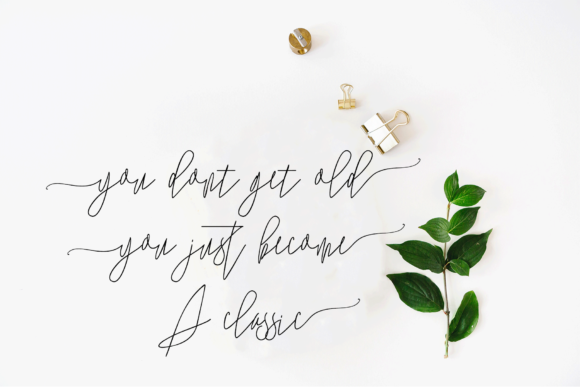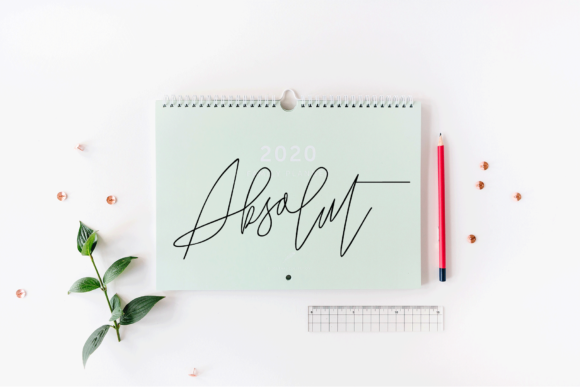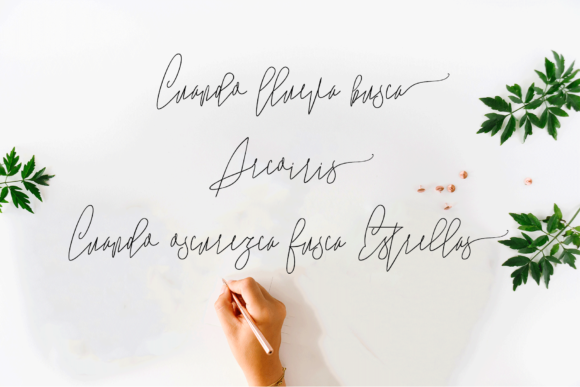
Introduction to Marthilla Font
Have you ever been working on a creative project and suddenly, the perfect font just pops into your mind? That’s exactly what happened to me when I stumbled upon the Marthilla Font. Its unique, handwritten style has a way of adding a personal touch to any design, making it truly special.
As a designer, finding the right font can make all the difference in a project. That’s why I’m excited to share with you the beauty of the Marthilla Font. This high-quality font is perfect for designers looking for a creative resource that’s both elegant and unique. With its transparent background and free download option, it’s a valuable addition to any design toolkit.
Whether you’re working on a branding project or a personal creative endeavor, the Marthilla Font is sure to inspire you with its beautiful, handwritten style.
Key Features of Marthilla Font
- Unique, elegant script font with a transparent background, perfect for adding a touch of sophistication.
- Includes a comprehensive set of characters, including uppercase and lowercase letters, numbers, and punctuation.
- Features a high-resolution design, suitable for use in print and digital applications at resolutions up to 300 DPI.
- Designed to be versatile and stylish, making it an excellent choice for a variety of creative projects, from branding to typography.
Honest Review: Marthilla Font
As a designer, I’m always on the lookout for high-quality design resources to elevate my creative projects. The Marthilla Font is one such find that has impressed me with its unique charm and versatility.
Here are the things that work well for me: ✨
- Uniqueness: The Marthilla Font has a distinct, elegant feel that sets it apart from more generic fonts.
- High quality: The font is well-designed and has a crisp, clean appearance, even at larger sizes.
- Limited language support: The font may not be compatible with all languages, which could be a drawback for designers working on multilingual projects.
- No bold or italic variants: The font only comes in a regular weight, which may limit its use in certain design scenarios.
Overall, I’m impressed with the Marthilla Font’s unique design and high quality. While it may have some limitations, it’s an excellent addition to any designer’s toolkit, especially for creative projects that require a touch of elegance.
Tips for Getting the Most Out of Marthilla Font
To maximize the effectiveness of Marthilla Font, use it in combination with other design elements that complement its elegant and sophisticated style. Experiment with different font sizes, colors, and arrangements to find the perfect balance for your creative project.
Common Use Cases for Marthilla Font
The Marthilla Font is ideal for various design applications, including: wedding invitations, business cards, product labels, and social media graphics. Its unique and high-quality design makes it a valuable resource for any creative project that requires a touch of sophistication and elegance.